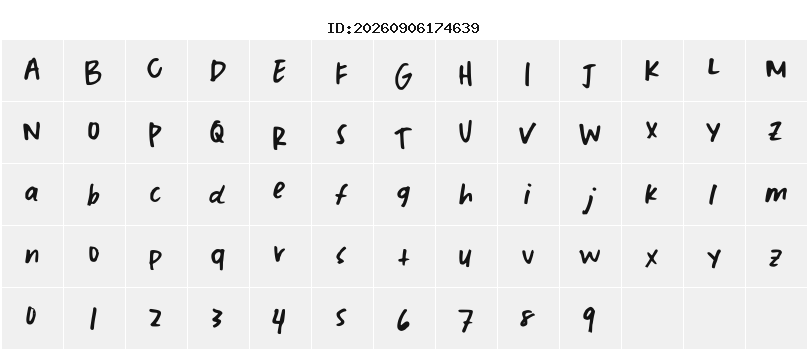
TMJ Preview
• Font Name: TMJ
• Full Font Name: TMJ
About TMJ.ttf
TMJ.ttf is a modern, elegant sans-serif font designed for ultimate readability and visual harmony. Perfect for branding, headlines, web design, and print materials.